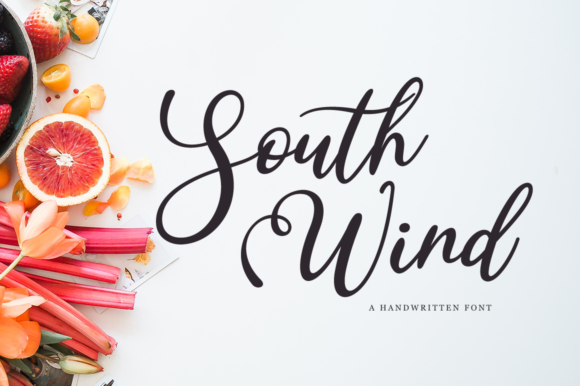
Introducing South Wind Font: A Breathtaking Voyage Into the World of Elegantly Handcrafted Scripts
South Wind Font, an exquisite creation by Pasha Larin, embarks you on a captivating journey into the realm of exquisite script typography. Its graceful strokes, meticulously drawn, evoke a sense of timeless elegance and charm. Designed with a keen eye for detail, this font is not merely a collection of letters; it's an artistic expression, a symphony of visual delight.
Meticulously Crafted, Uniquely Yours: Embark on a Typographic Odyssey
With South Wind Font, you hold the key to unlocking a world of creative possibilities. Its versatile nature allows you to effortlessly weave it into a tapestry of designs, from branding projects that demand attention to elegant wedding invitations that whisper sweet nothings. Whether you seek to craft captivating logos that leave a lasting impression or elevate your social media presence with a touch of sophistication, South Wind Font is your steadfast companion.
A Symphony of Beauty, a Chorus of Versatility: Experience the Allure of South Wind Font
South Wind Font sings a harmonious tune of versatility. Its script-like elegance effortlessly blends with a spectrum of design aesthetics, effortlessly complementing vintage-inspired themes while seamlessly integrating into modern, minimalist layouts. The font's versatility extends to its multilingual capabilities, enabling you to craft messages that resonate with audiences across linguistic borders.
Awaken Your Creativity, Unleash Your Imagination: Discover the Limitless Potential of South Wind Font
South Wind Font is more than just a collection of characters; it's a catalyst for creativity, a spark that ignites your imagination. Let its graceful lines inspire you to create breathtaking logos that capture the essence of your brand, design captivating social media posts that dance off the screen, or craft heartfelt wedding invitations that evoke a symphony of emotions. The possibilities are boundless, limited only by the horizons of your creativity.